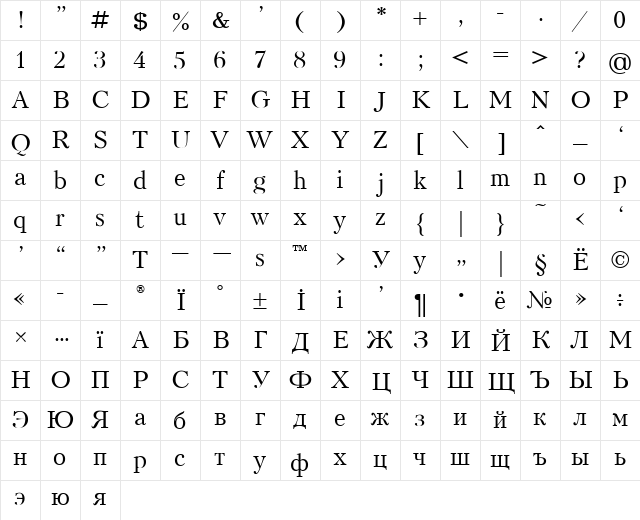
Complete Kudrashov Plain glyph index. Displaying only characters natively supported by Kudrashov Plain font.
Kudrashov is a composed and adaptable typeface that performs quietly and consistently across a wide range of design contexts.